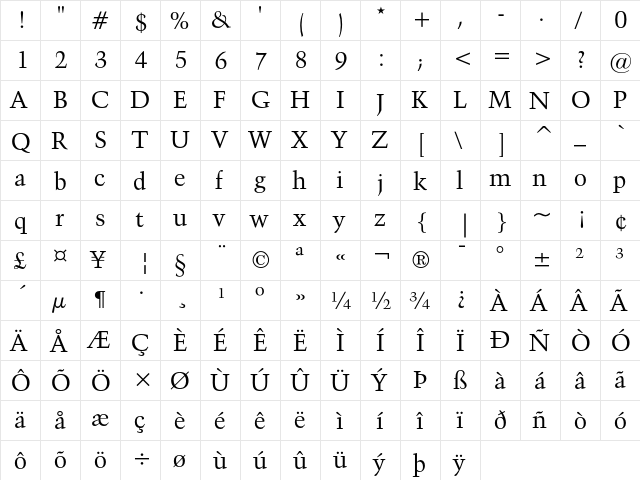
Kuenstler 480 Regular
Design Context for Kuenstler 480 Typeface
Kuenstler 480 takes a measured approach to typography — its balanced proportions and neutral character make it a reliable workhorse for both digital and print work.